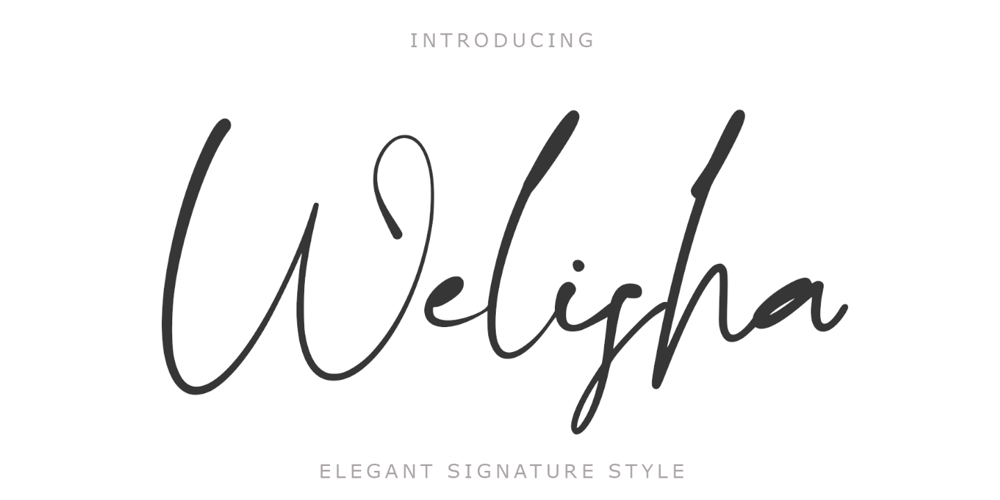
Welisha Font Family was designed by Isroni Yoga Prasetya and published by Yoga Letter. Welisha contains 1 styles and family package options. “Welisha” is a very elegant signature font. This font is equipped with uppercase, lowercase, numerals, punctuations and multilingual support. Very suitable for spring, summer, weddings, invitations, engagement, certificates, logos, posters, prints, branding and others.